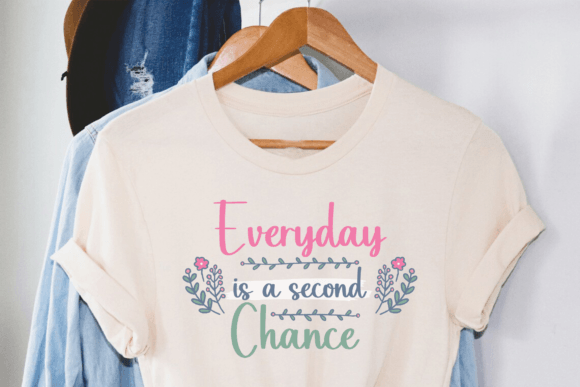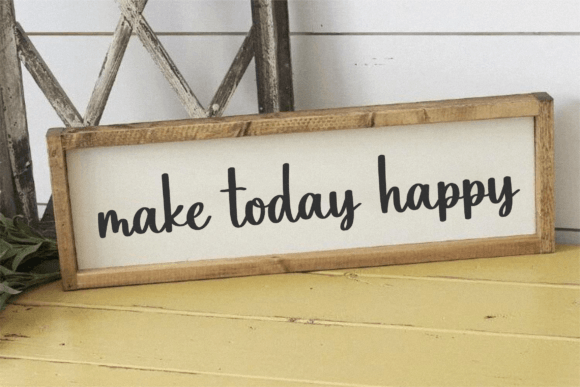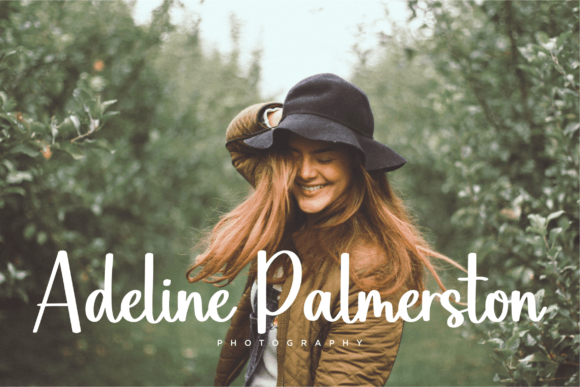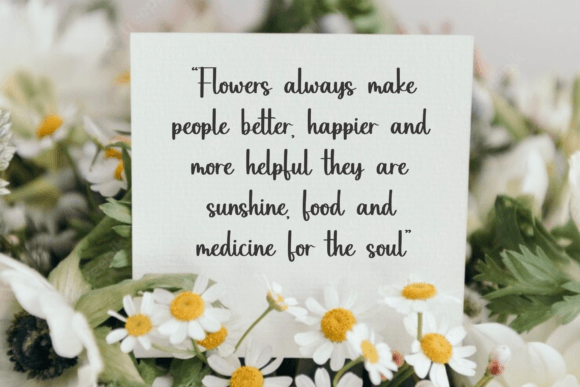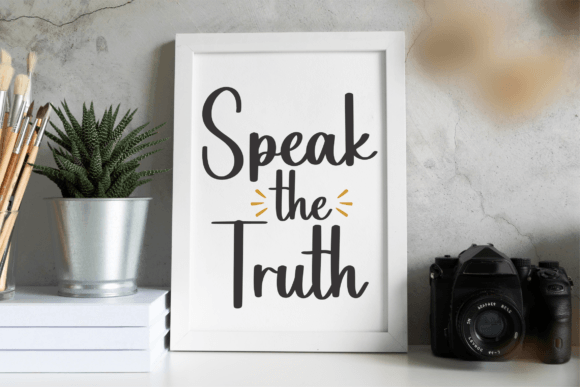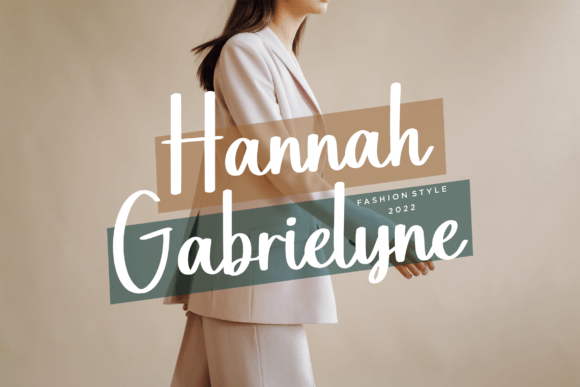
Have you ever sat down with a blank sheet of paper and a pen, waiting for inspiration to strike? The silence is broken by a single stroke of the pen, and suddenly, a beautiful handwritten script unfolds. This is the magic of creating something from scratch, and it’s exactly what the Bellowingsky Font embodies.
Bellowingsky is a modern handwritten font designed to bring a touch of elegance and sophistication to your projects. Whether you’re working on product packaging, branding, or social media posts, this font is perfect for adding a personal touch. With its PUA encoding, accessing all glyphs and swashes is a breeze, making it a valuable asset for designers.
As a designer, you know the importance of finding the right font to convey your message. The Bellowingsky Font is a game-changer, offering a unique and versatile script that’s sure to elevate your projects to the next level.
Bellowingsky Font Key Features
- Font Family: Bellowingsky Font is a unique, custom-designed font family consisting of 6 weights (Light, Regular, Medium, Bold, Heavy, Black) and 3 styles (Italic, Oblique, Regular).
- Character Set: Bellowingsky Font includes a comprehensive character set, covering Latin, Cyrillic, and Greek alphabets, as well as various symbols and punctuation marks.
- Unique Characteristics: Bellowingsky Font features a distinctive, hand-drawn design with intricate details and flourishes, giving it a touch of elegance and sophistication.
Bellowingsky Font Review
Overall, I’d say the Bellowingsky Font has some great features, but it also comes with some limitations. Let’s dive into what works well and what doesn’t.
- Unique aesthetic: The Bellowingsky Font has a distinct, whimsical feel to it that sets it apart from other fonts.
- Good for titles and headings: Its bold, expressive style makes it perfect for use in titles and headings.
- Wide character set: The font includes a wide range of characters, including ligatures and alternates, which adds to its versatility.
- Lack of subtlety: The font can be overwhelming in large blocks of text, making it difficult to read.
- Not suitable for body text: Due to its bold style, the Bellowingsky Font is not ideal for use in body text, where readability is key.
- Not fully optimized for digital use: The font may not render as smoothly on digital devices, which can lead to a choppy appearance.
Overall, the Bellowingsky Font is a great choice for projects where you want to add a touch of whimsy and personality. However, it’s essential to use it judiciously and in the right context to avoid overwhelming the viewer. With some careful consideration and planning, the Bellowingsky Font can be a valuable addition to your design toolkit.
The Bellowingsky Font is ideal for creating eye-catching headings and titles. It works well in combination with other fonts to add a touch of elegance to your designs. Use it for:
– Creating attention-grabbing headlines
– Designing luxury brand logos
– Adding a touch of sophistication to your business cards
Pacifico is a beautiful, elegant script font perfect for creating a sense of luxury and sophistication. It is ideal for use in branding, advertising, and editorial design where a high-end feel is desired.
Compared to Bellowingsky Font, Pacifico has a more refined and polished look, making it suitable for a wider range of applications. While Bellowingsky Font has a more rustic, vintage feel, Pacifico is more modern and sleek.
Great Vibes is a fun, energetic script font that is perfect for creating a lively and playful atmosphere. It is ideal for use in social media, advertising, and entertainment design where a youthful and energetic vibe is desired.
Yes, Bellowingsky is designed to be compatible with all major operating systems, including Windows, macOS, and Linux. It is also optimized for use with popular font management software and font editors.
Q: What is the font weight range for Bellowingsky?
Bellowingsky is available in six font weights: Light, Thin, Regular, Medium, Semi-Bold, and Bold. This range allows you to choose the perfect weight to match your project’s style and emphasis. You can also use the font’s built-in italic and bold-italic styles to add variety to your text.